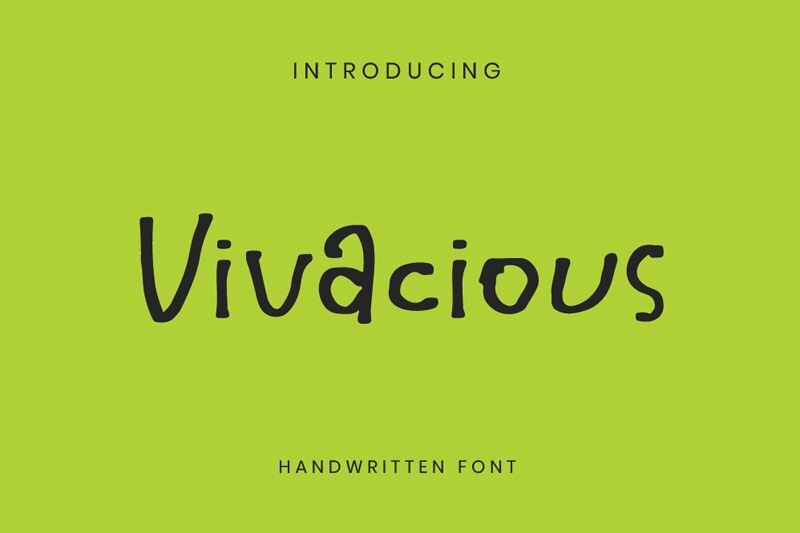
Vivacious HF font family by Just Handwritten comes with 2 font styles. As its playful name implies, this free font family features an expressive personality and organic movement that give it a unique charm. Starting from its informal style and casual mood, Vivacious HF is the result of an interesting and inspiring merging process between handwritten features and digital perfection.
Use the lowercase characters when you want a subtle and flowing display and then head to the capitals when you want to make your text pop. This great font is designed for handwritten logos, businesses, wedding designs, social media, advertisements, and product packaging. Use it for product designs, labels, photography, watermarks, invitations, stationery, and any other project with a classy and professional final result.